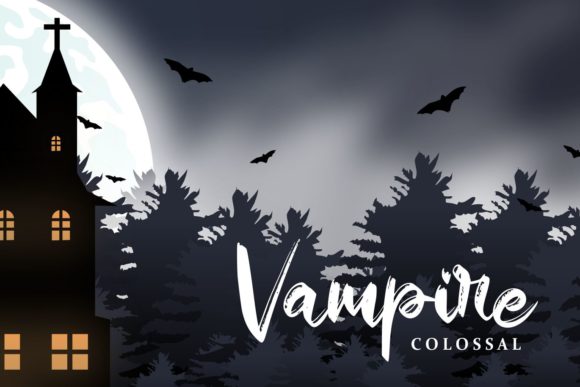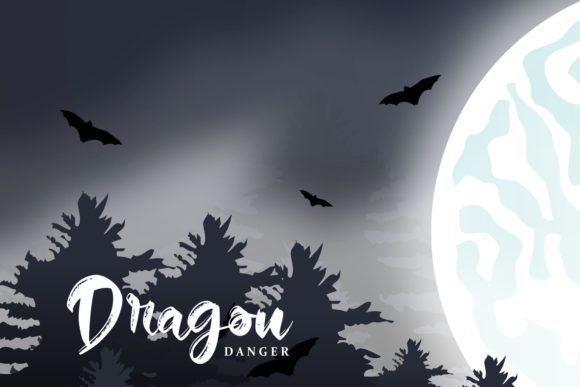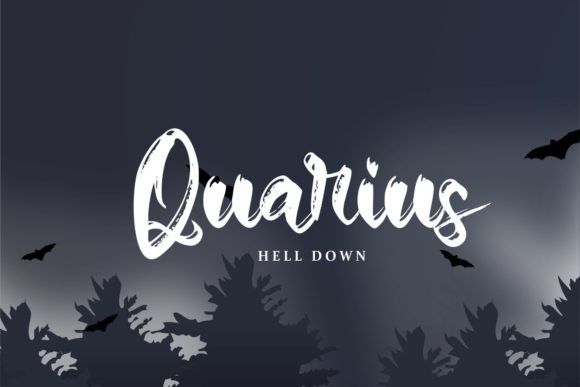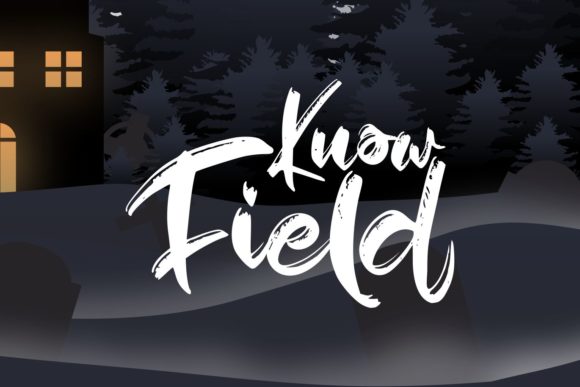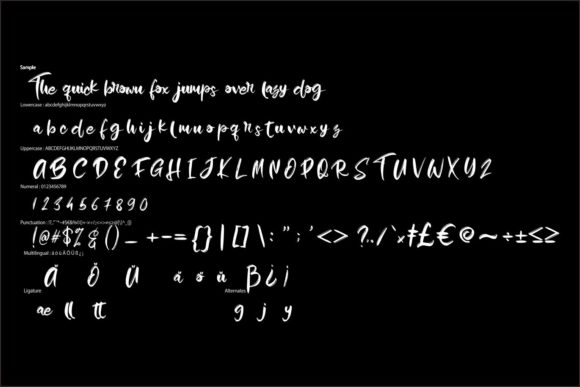
The Perfect Brushstroke: Unveiling the Humble Font
Have you ever been brainstorming a design project and suddenly, a single font catches your eye? For many designers, it’s the moment when the perfect brushstroke or letterform sparks creativity and sets the tone for the entire project. That’s exactly what happened when we stumbled upon the Humble Font.
This beautiful handwritten font is designed to evoke a sense of mysticism and wonder, making it perfect for designers looking to add a touch of magic to their work. With its unique characters and elegant flair, the Humble Font is a valuable addition to any designer’s toolkit. Whether you’re working on a book cover, a website, or a marketing campaign, this font is sure to inspire and captivate your audience.
Humble Font Key Features
- Unique Characteristics: The Humble Font features a unique blend of modern and classic design elements, with subtle flair and sophistication. It is ideal for use in editorial, publishing, and advertising contexts where a professional yet approachable look is desired.
- Kerning and Ligatures: The Humble Font includes advanced kerning and ligature tables, ensuring that text sets up smoothly and reads well, even in complex layouts.
Humble Font Review
I’ve had the chance to work with Humble Font, and here’s my honest take on it.
- Unique Character: Humble Font’s design stands out with its quirky and playful feel. It’s perfect for adding a touch of whimsy to your designs.
- Flexibility: This font is incredibly versatile, suitable for both digital and print media. It looks great in headings, body text, and even as a title font.
- Legibility: Despite its unique design, Humble Font remains highly legible, making it a great choice for lengthy texts or documents.
- Limited Language Support: Humble Font might not be the best choice for languages that require complex typography, such as Chinese or Japanese.
- Not Ideal for Small Text: Due to its unique design, Humble Font can become difficult to read when used in small text sizes.
Humble Font is a great addition to any designer’s toolkit. Its unique character and flexibility make it a great choice for a wide range of projects. However, it’s essential to consider its limitations when choosing the right font for your design. Overall, I’d give Humble Font 4 out of 5 stars – it’s a great choice for designers looking to add a touch of personality to their work.
For a more authentic look, pair Humble Font with a distressed or grunge filter.
Use Humble Font to create a vintage or retro-inspired design.
Use Humble Font to create a unique and eye-catching title or heading.
Humble Font is perfect for:
- Creating a vintage or retro-inspired design.
- Adding a distressed or grunge effect to your text.
- Designing a unique title or heading.
- Creating a logo or brand identity.
Remember to experiment with different font styles and sizes to get the most out of Humble Font.
Alternatives to Humble Font for Designers
Montserrat is a sans-serif font designed by Julieta Ulanovsky. It’s a modern, clean, and highly legible font suitable for body text and titles. Montserrat is ideal for digital products, mobile apps, and websites.
Comparison to Humble Font: Montserrat is more geometric and has a stronger grid-like structure, whereas Humble Font is more rounded and organic. Montserrat is also more versatile and suitable for a wider range of applications.
Open Sans is a modern sans-serif font designed by Steve Matteson. It’s highly legible and suitable for body text, titles, and headings. Open Sans is ideal for digital products, websites, and mobile apps.